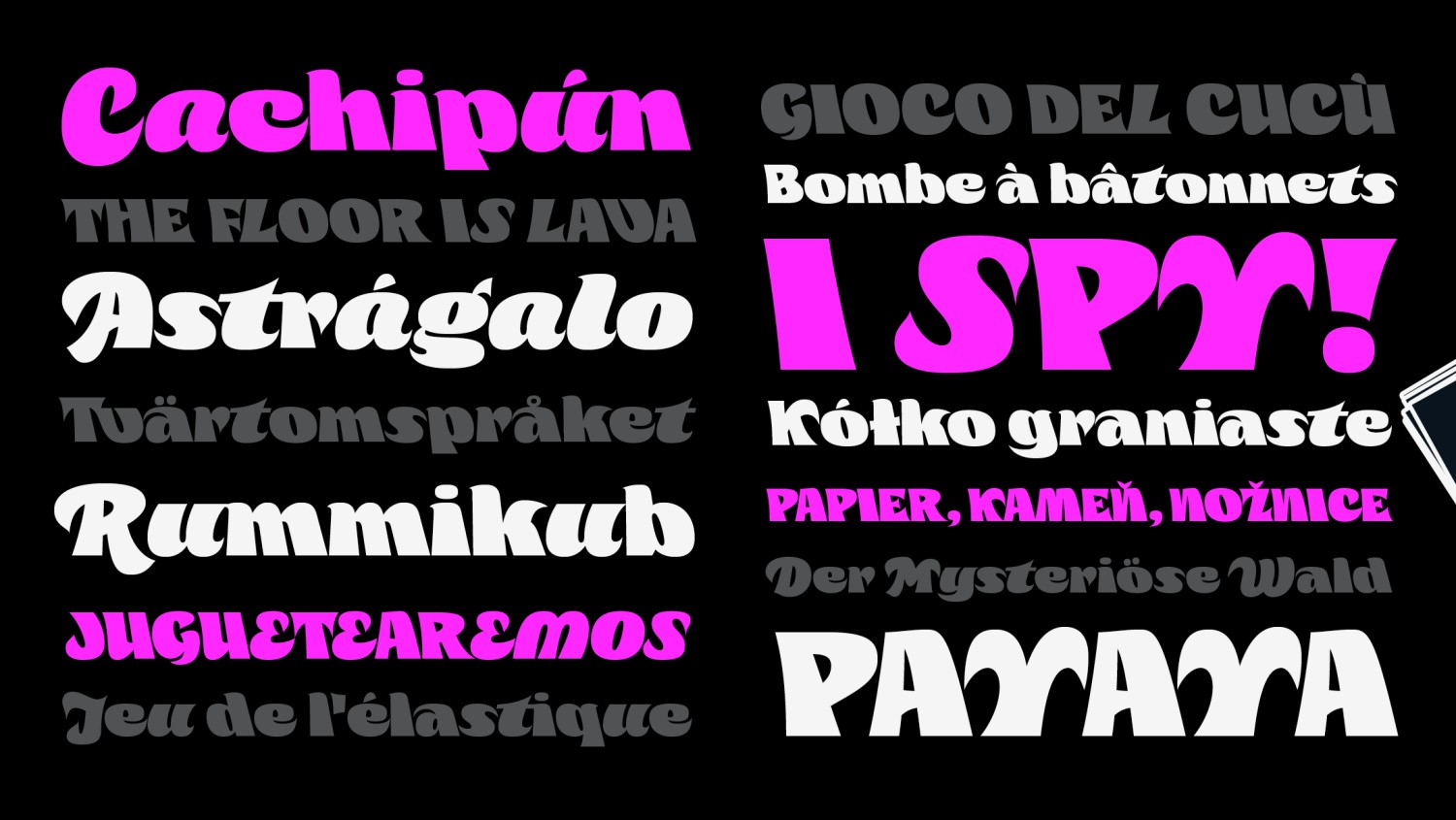
Simona
Designed by
Javier Quintana Godoy
Simona is a typeface as bold as black, designed for carefree headlines and playful highlights, always in large sizes and short sentences. Simona’s main idea is to achieve a very black cursive and reverse-cursive typeface, which works all mixed in one-style font. So, we put together letters that go back and forward making a ‘hurricane rhythm’ bringing fresh air to big sizes typesetting.